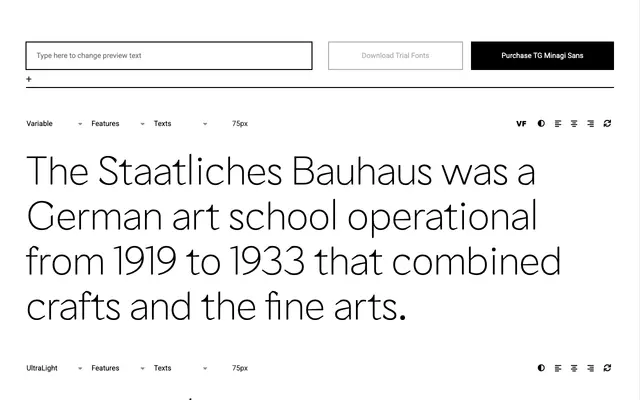
TG Minagi Sans
Tegamitype · Iqbal Firdaus · 2021
A neo-humanist sans serif by Iqbal Firdaus that draws on calligraphic and blackletter forms to give its letterforms a sharp, slightly stiff character suited to display sizes.
Combining modern sans proportions with details borrowed from calligraphy and blackletter, TG Minagi Sans achieves a distinctive angularity that reads well at headline and display scales without collapsing at smaller text sizes. The family spans seven weights from UltraLight to UltraBold, each with an oblique companion, and is also available as a variable font with two axes. OpenType support includes multiple figure styles, ligatures and stylistic sets, covering over 100 Latin-based languages.
Described as a neo-humanist sans serif with calligraphic and blackletter influences lending sharp details and stiffness; combines humanist proportions with modern sans letterforms.